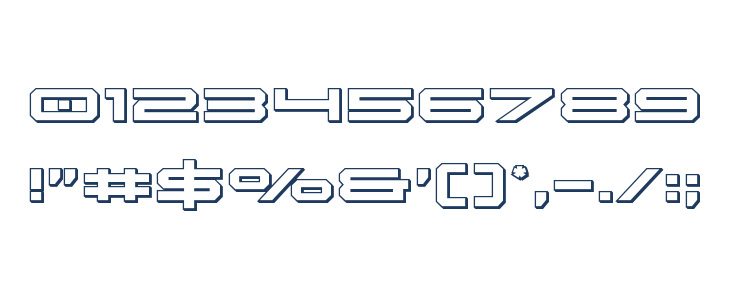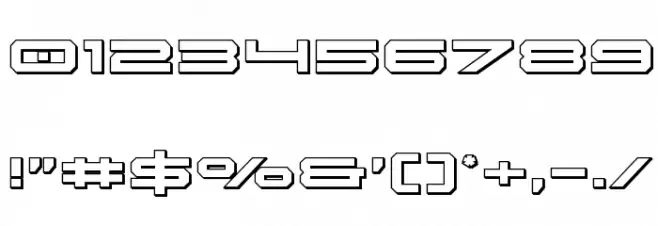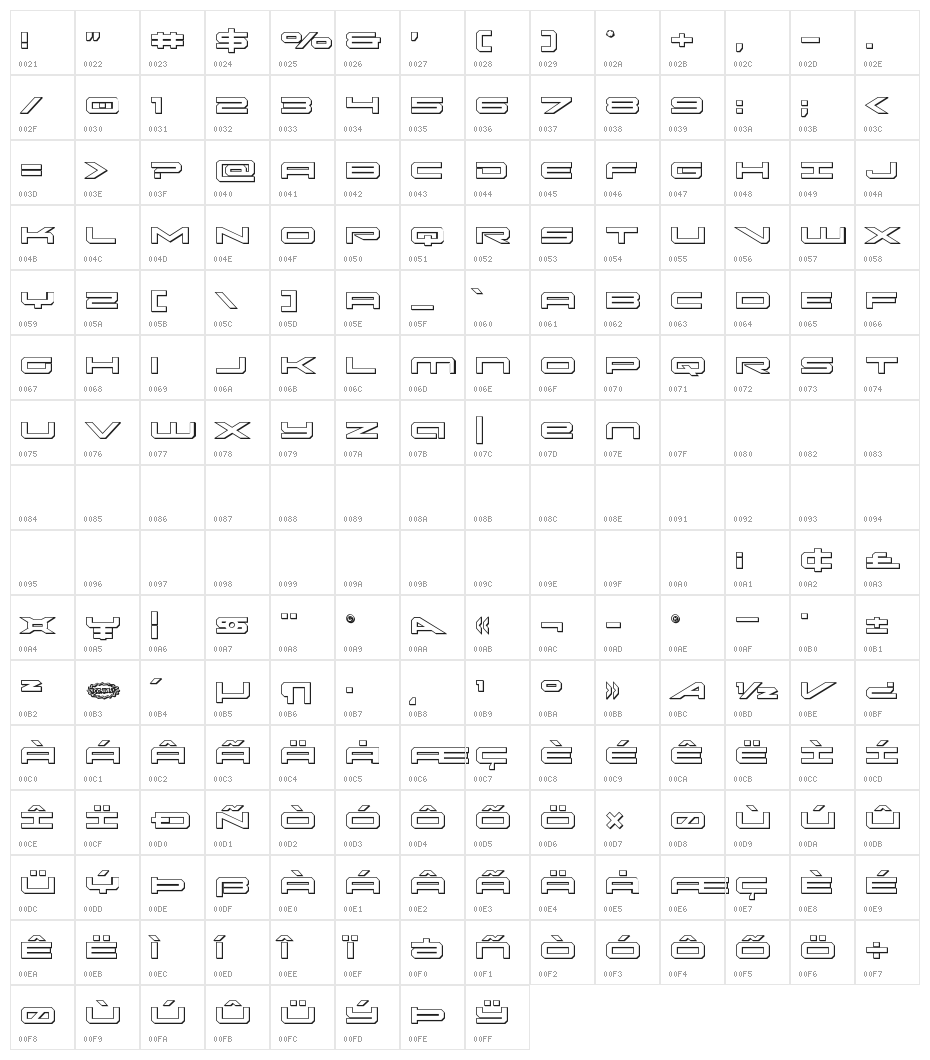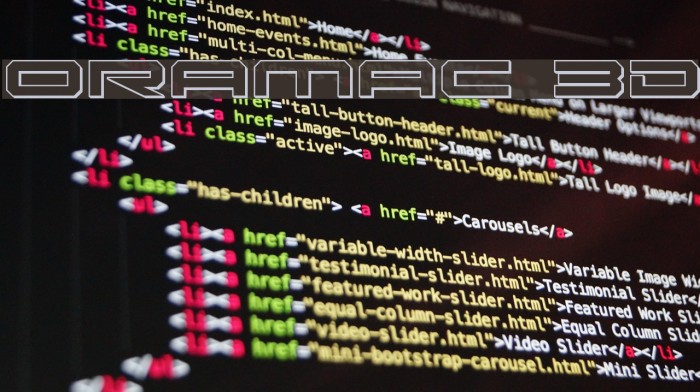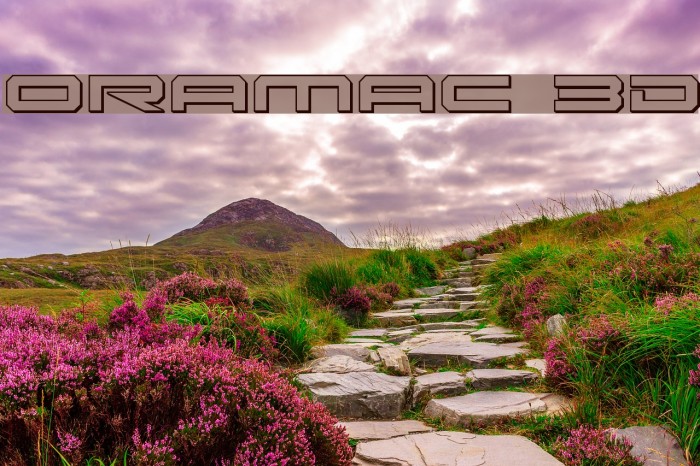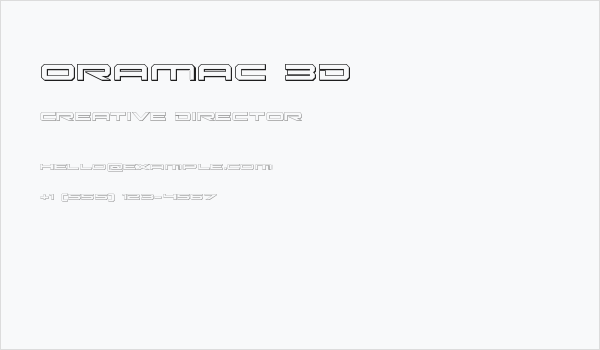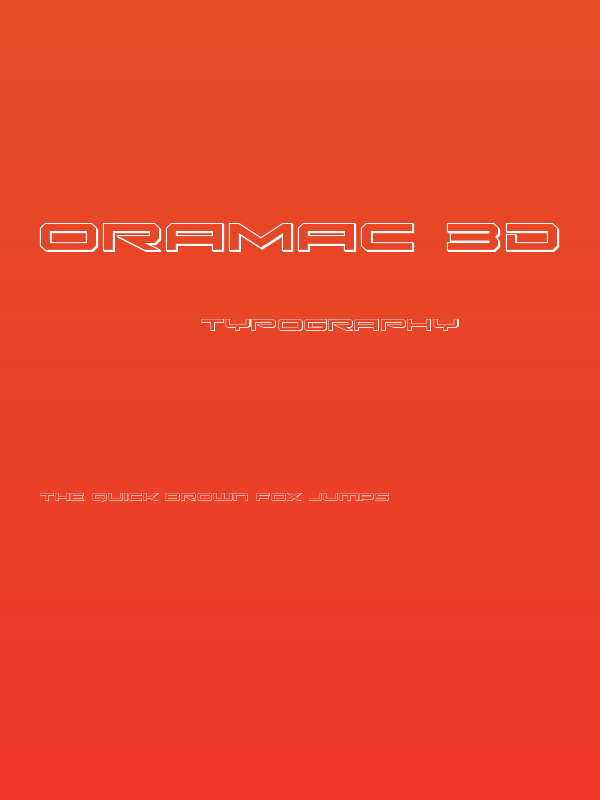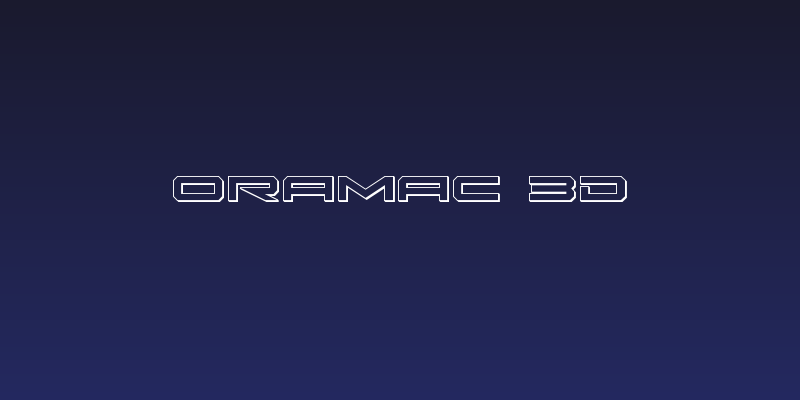
Oramac 3D Font
Oramac 3D Description
This font features a distinct 3D outline style that gives each character a bold and futuristic appearance. The geometric shapes and sharp angles create a sense of depth and dimension, making it stand out in any design. The uppercase and lowercase letters maintain a consistent structure, while the numerals and special characters complement the overall aesthetic. The font's clean lines and modern look make it suitable for projects that require a contemporary and eye-catching typeface.
ORAMAC-3D UPPERCASE
ORAMAC-3D LOWERCASE
ORAMAC-3D OTHER CHARS